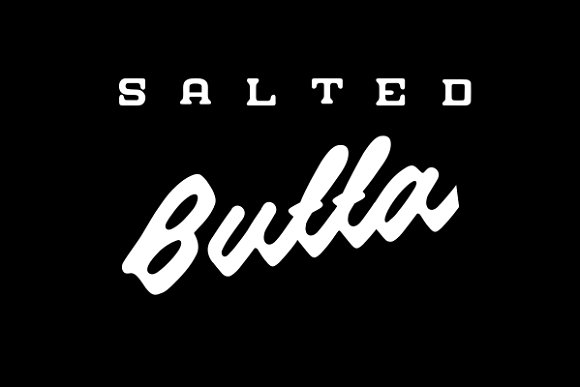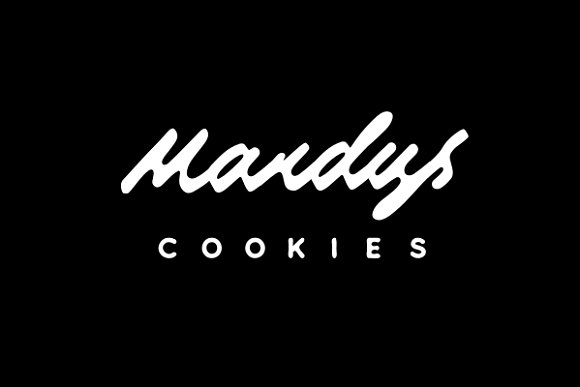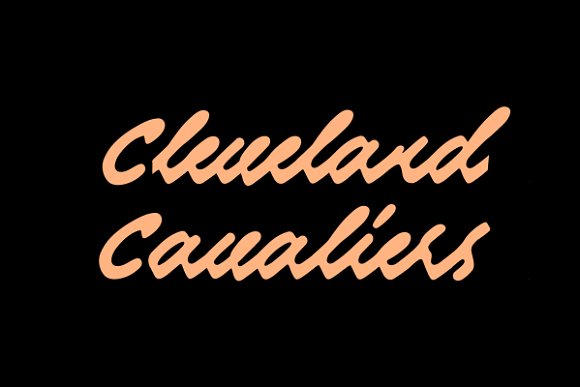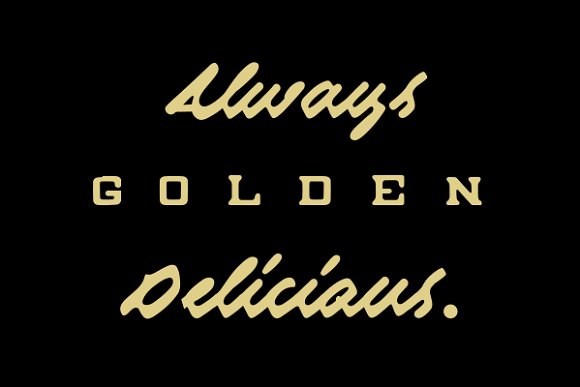
Vivien Font
About Vivien Font
A script that started as a custom lettering job. I was curious to see if it would work as a script as brush pen lettering is usually highly praised. Vivien turned out to be worth the pursuit and I hope to create more scripts for you guys soon.